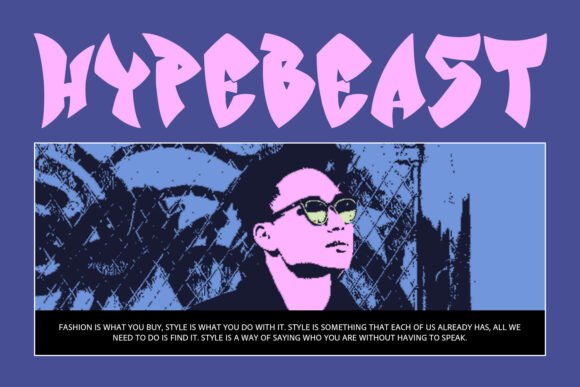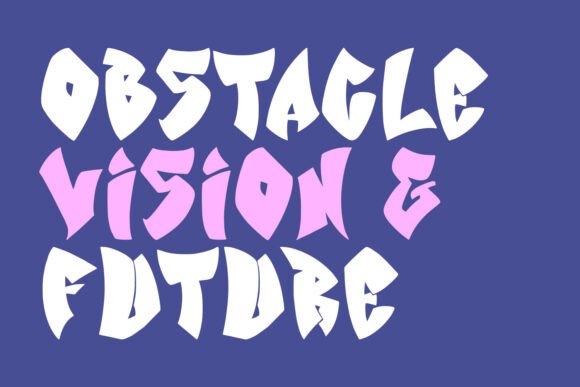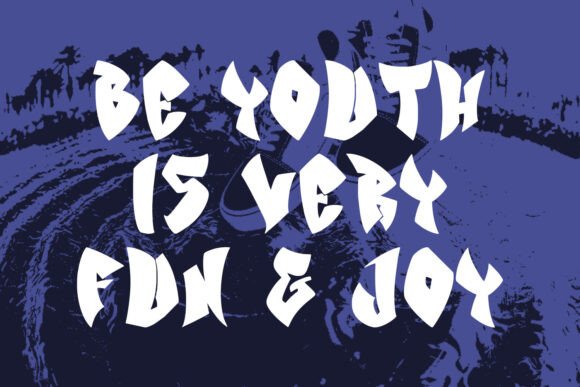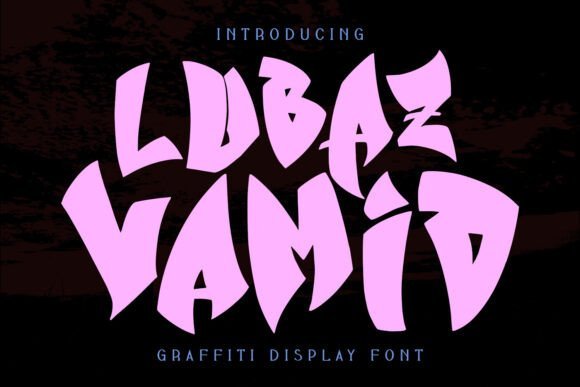
Introduction to Lubaz Vamid Font
Lubaz Vamid is a bold and edgy graffiti-style display font that captures the rebellious essence of street art.
With sharp, angular forms and a playful rhythm, it’s perfect for urban projects, album covers, posters, and anything that needs a striking and creative edge Stand out with this vibrant and expressive typeface.